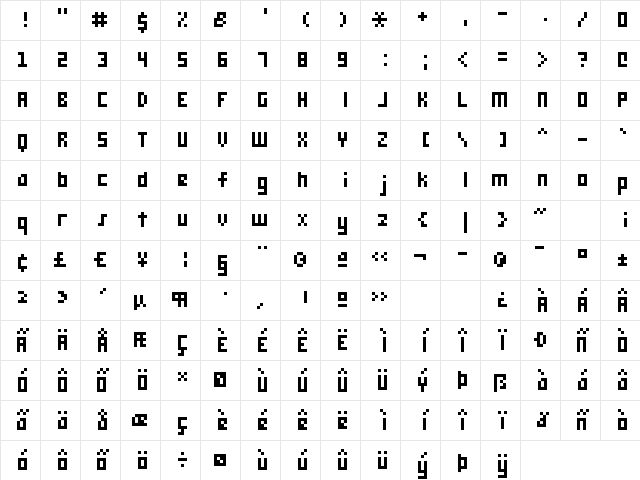
monooge 05_56 Regular
Design Context for monooge 05_56 Typeface
monooge 05_56 uses fixed-width spacing throughout, giving it the structured, systematic character associated with coding environments and technical documentation.